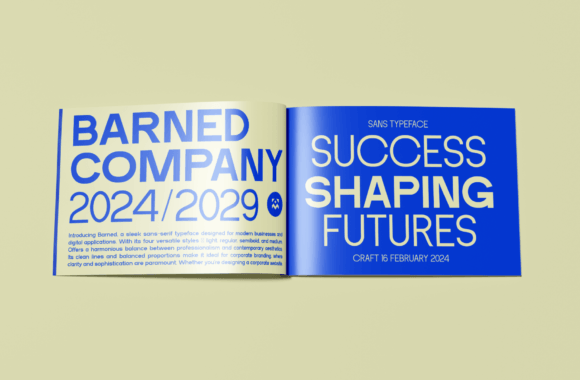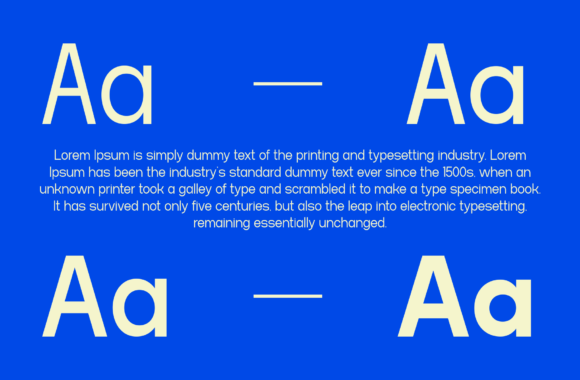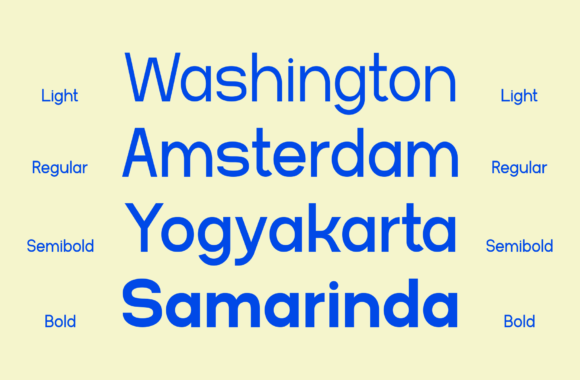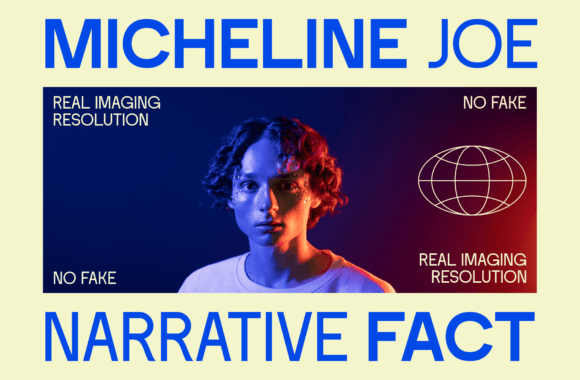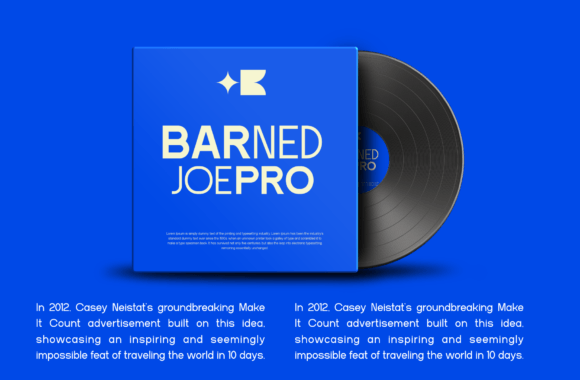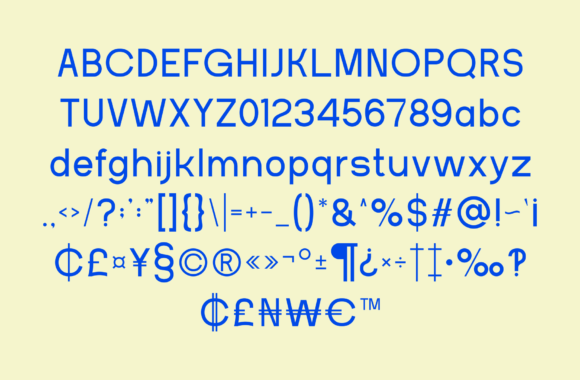
Introducing **BARNED**: The Ultimate Sans-Serif Typeface for Modern Business and Digital Applications
In the realm of typography, a font can make or break the visual identity of a brand. For modern businesses and digital applications, having a typeface that exudes professionalism, sophistication, and a touch of contemporary flair is crucial. This is where **BARNED**, a sleek sans-serif typeface, comes into play. Designed with versatility in mind, **BARNED** offers four distinct styles: light, regular, semibold, and bold, making it an ideal choice for a wide range of applications.
A Harmonious Balance of Professionalism and Aesthetics
**BARNED** strikes a perfect balance between professionalism and contemporary aesthetics. Its clean lines and balanced proportions make it an excellent choice for corporate branding, where establishing a strong visual identity is paramount. The font’s sleek appearance ensures that it can be used across various platforms, from digital interfaces to print materials, without compromising on style or legibility.
Versatility at Its Core
One of the standout features of **BARNED** is its versatility. The four-style offering (light, regular, semibold, and bold) provides designers with the flexibility to create a wide range of visual hierarchies and emphasis. Whether you’re looking to craft a subtle, yet sophisticated brand message or make a bold statement, **BARNED** has got you covered. This versatility is particularly beneficial in digital applications, where adaptability across different screen sizes and devices is crucial.
Clean Lines and Balanced Proportions
The clean lines of **BARNED** contribute to its modern and streamlined appearance, making it highly legible even at smaller sizes. This is particularly important in digital applications, where users often skim through content. The balanced proportions of the font ensure that each character is harmonious with the others, creating a cohesive and visually appealing text flow. These features make **BARNED** an excellent choice for body text, headings, and even display titles.
Ideal for Corporate Branding
Corporate branding is about creating a visual identity that resonates with your audience and sets you apart from competitors. **BARNED** is specifically designed with this goal in mind. Its professional appearance and modern aesthetic make it an excellent tool for businesses looking to establish a strong brand presence. From logos and marketing materials to website design and digital advertising, **BARNED** can help ensure consistency and quality across all your branding efforts.
Enhancing Digital Applications with **BARNED**
In the digital realm, the right typeface can significantly enhance user experience. **BARNED**’s clarity and legibility make it an excellent choice for digital interfaces, including websites, mobile apps, and digital marketing materials. Its responsive design ensures that it looks great on all devices, from large monitors to mobile phones, providing a seamless user experience across platforms.
**BARNED** is more than just a typeface; it’s a tool for designers and businesses to create compelling, professional, and aesthetically pleasing content. Its sleek sans-serif design, combined with its versatility and legibility, makes it an ideal choice for modern business and digital applications. Whether you’re a designer looking for a reliable font for your next project or a business aiming to strengthen your brand’s visual identity, **BARNED** is an excellent choice. Embrace the power of **BARNED** and elevate your brand’s typography to new heights.
Key Features of **BARNED**:
- Sleek sans-serif typeface
- Four versatile styles: light, regular, semibold, and bold
- Ideal for corporate branding and digital applications
- Clean lines and balanced proportions for enhanced legibility
- Versatile and adaptable for various design needs